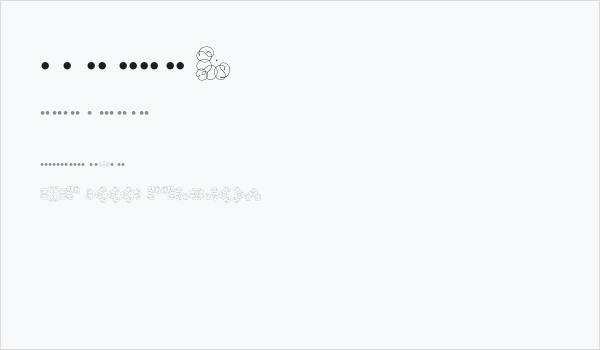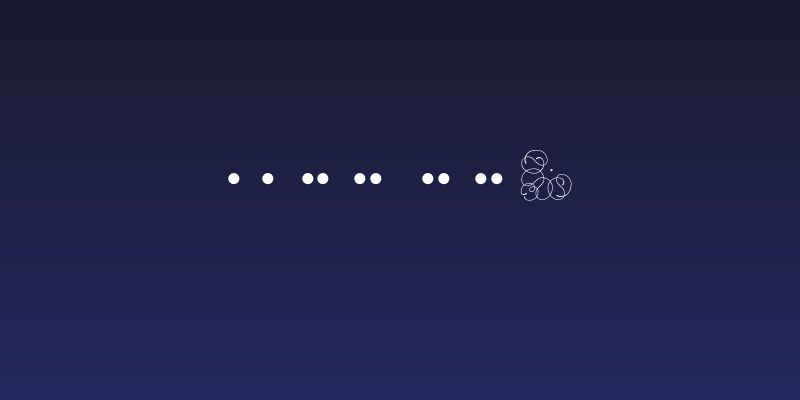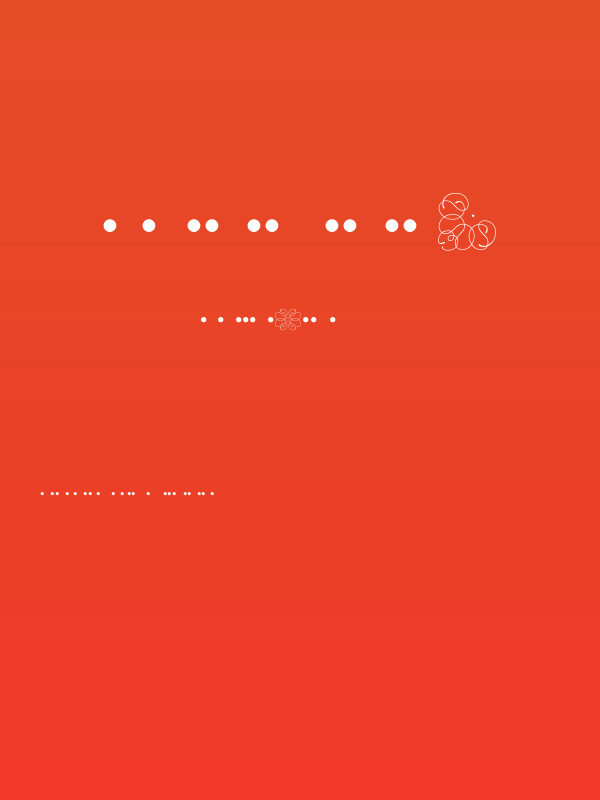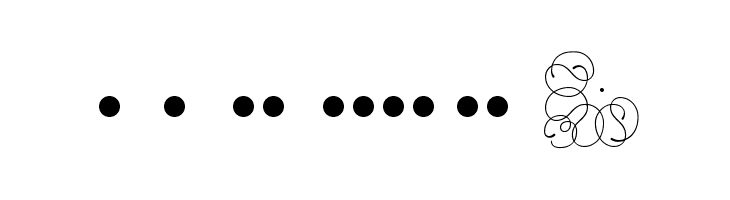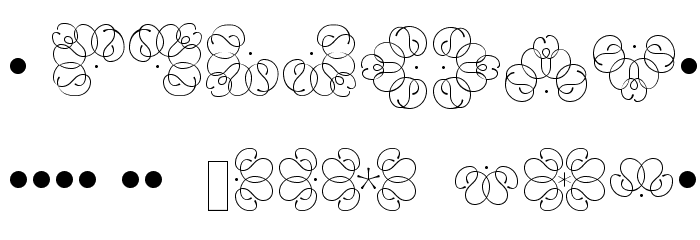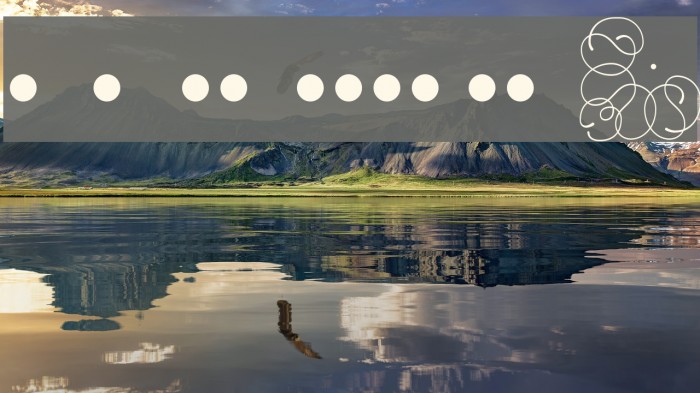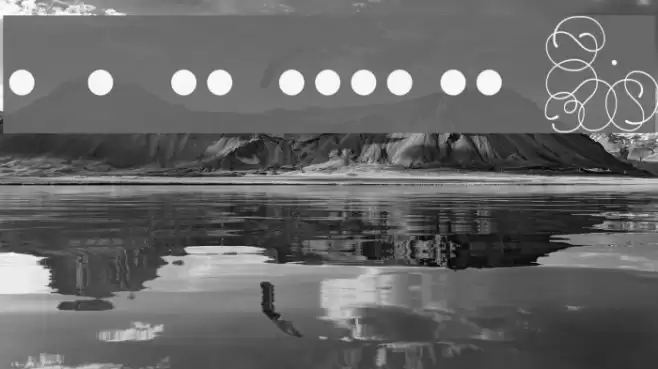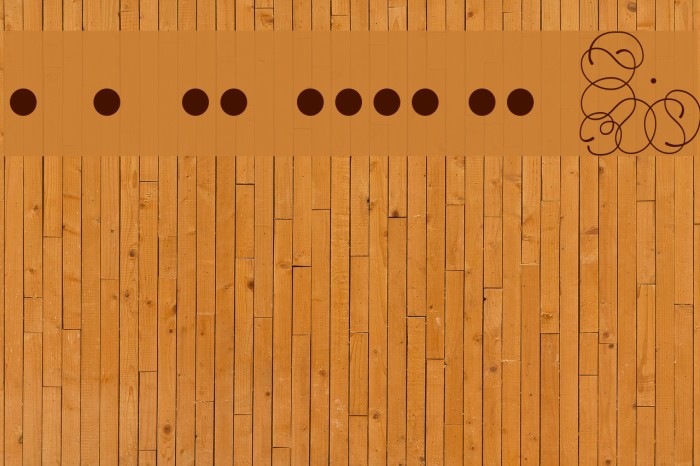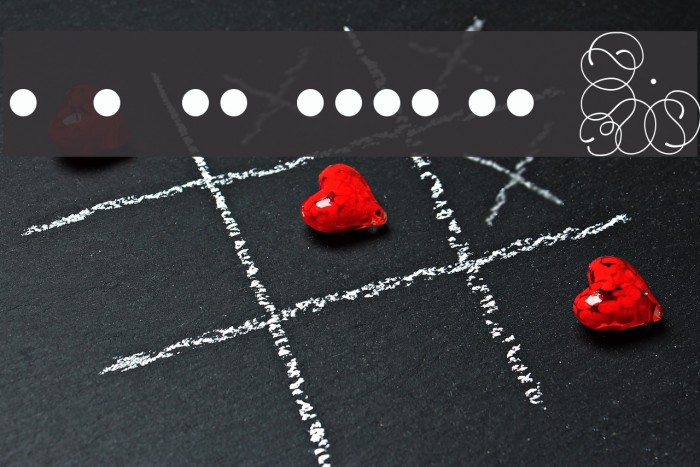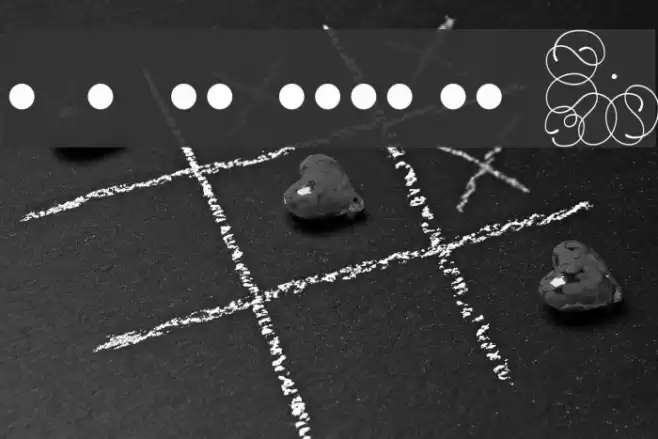
ZnikomitS03 Font
ZnikomitS03 Description
This is not a valid font. The image consists of abstract shapes and patterns that do not represent any recognizable alphabet or numerical system. The elements appear to be decorative and artistic in nature, lacking the typical structure and form of a standard typeface. The design includes floral and circular motifs, which are visually appealing but do not serve the functional purpose of a font.
| Use Case | Decorative elements, Art projects |
| Proposed Projects | This design could be used for decorative artwork, pattern design, or as a background element in graphic design projects. |